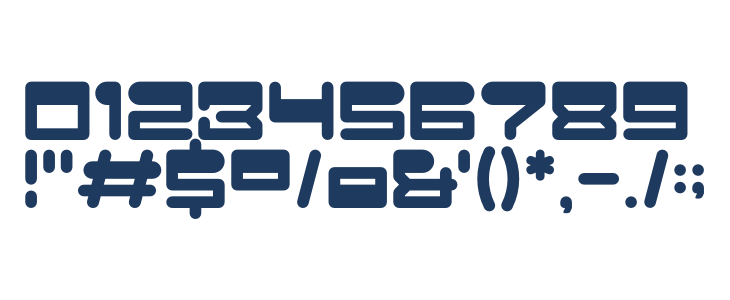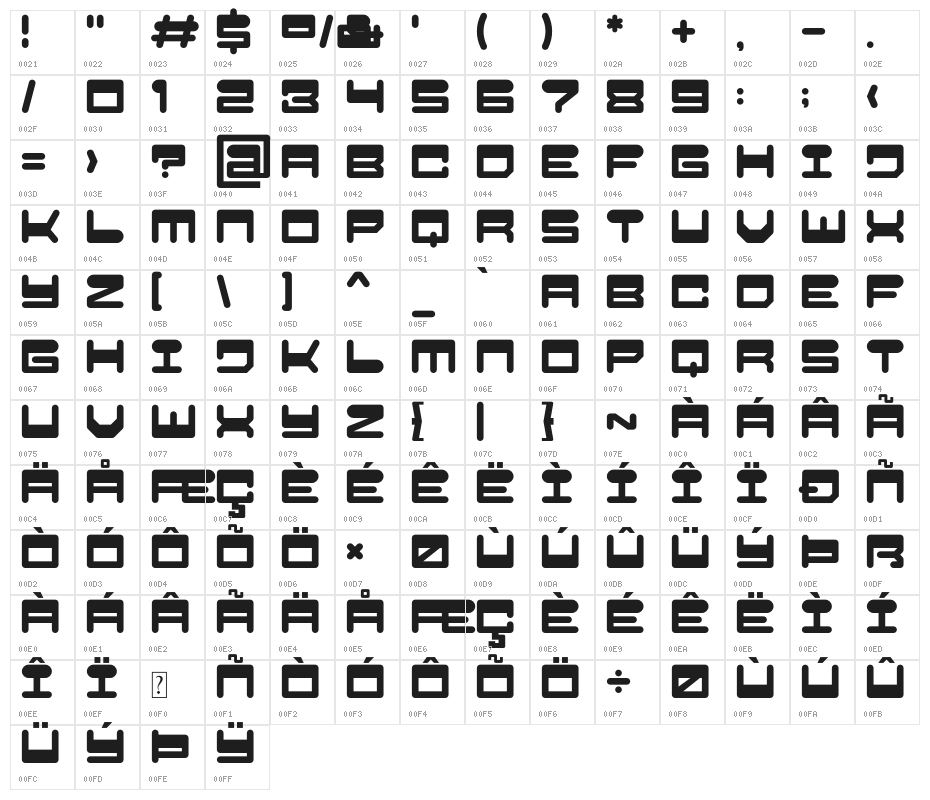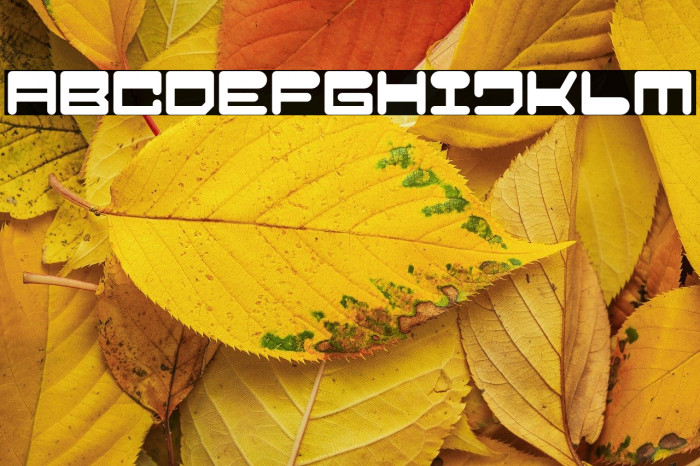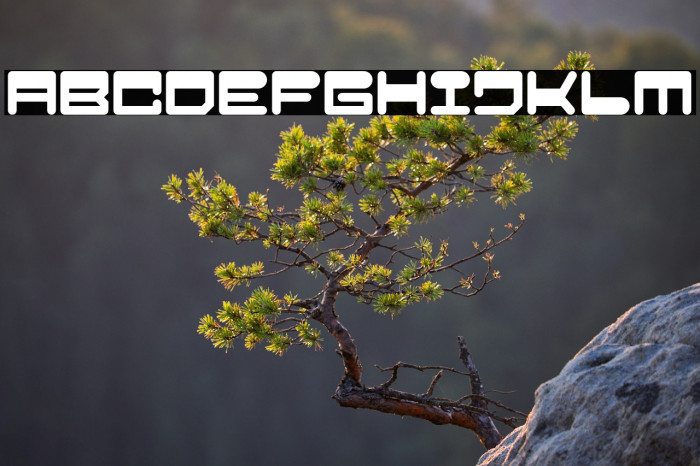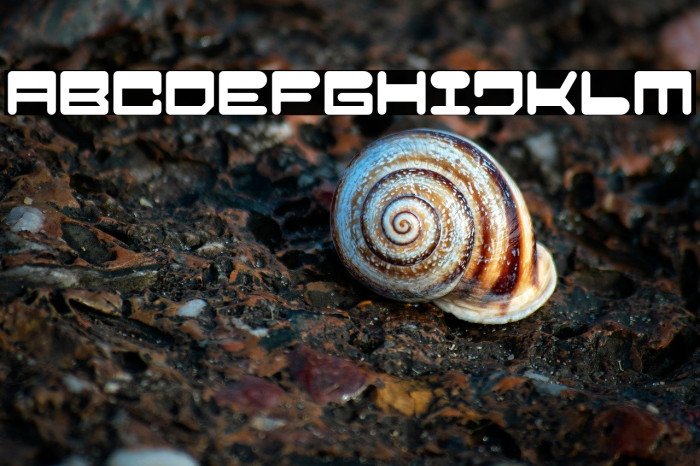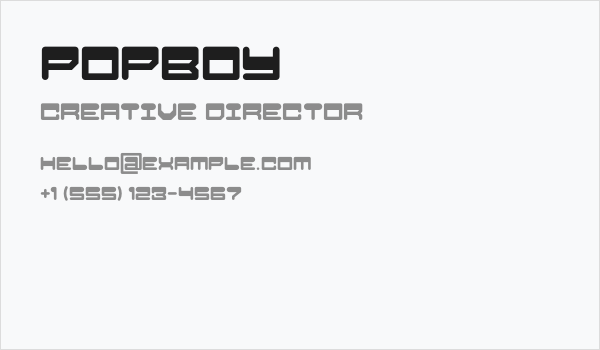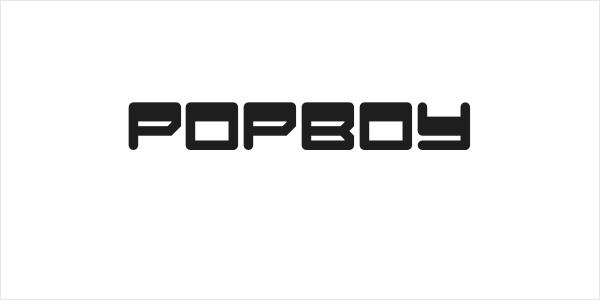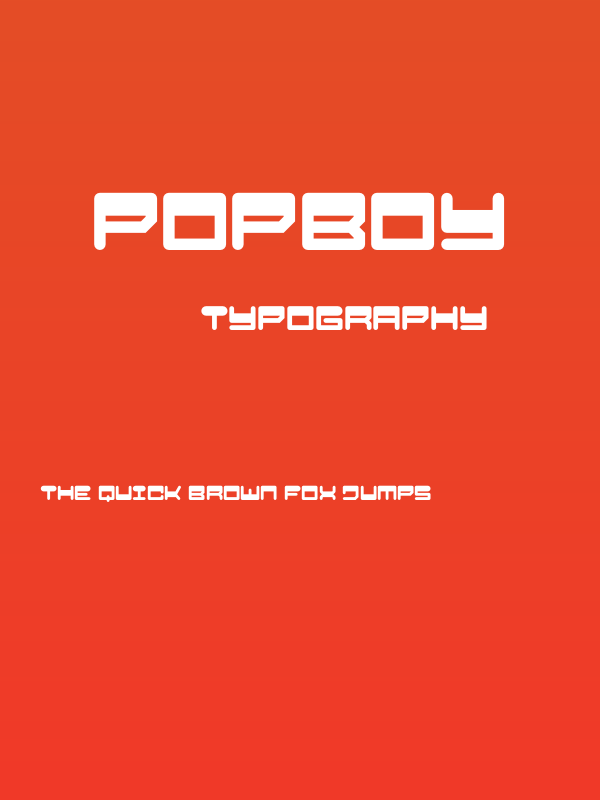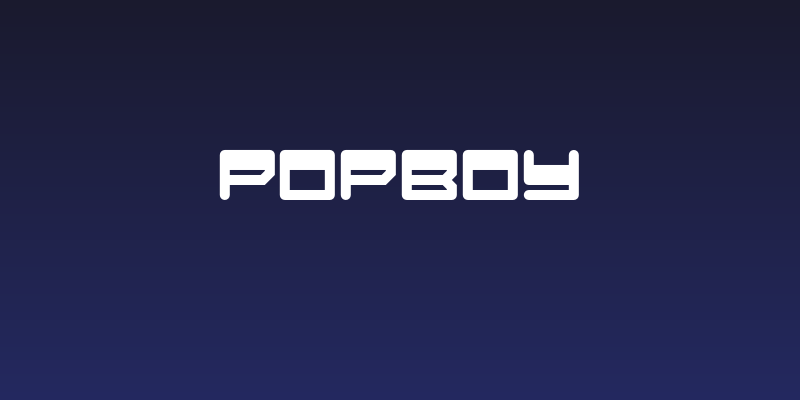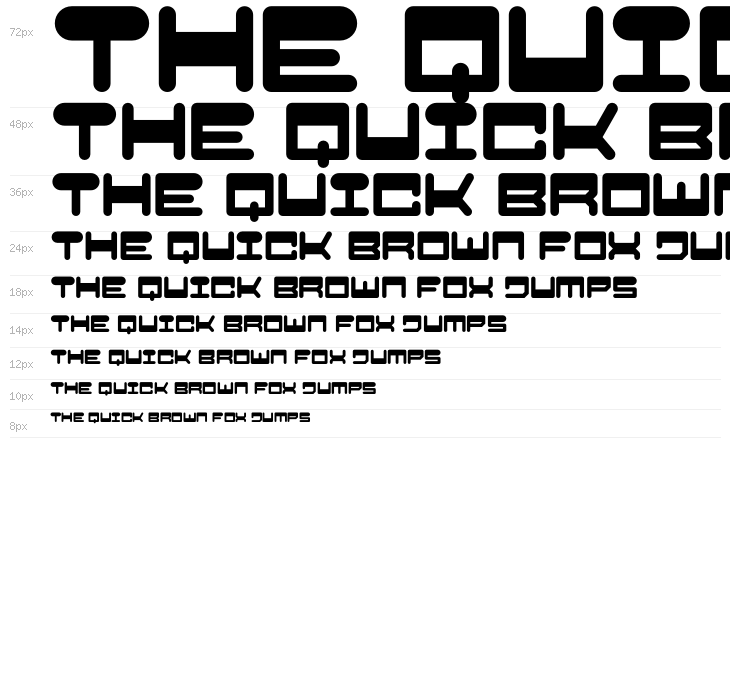
Popboy Font
Popboy Description
This font features a bold, futuristic design with rounded edges and a geometric structure. The characters are uniformly thick, giving a strong and solid appearance. The style is reminiscent of digital or sci-fi themes, with a modern twist that makes it suitable for technology-related projects. The uppercase and lowercase letters maintain a consistent height, while the numbers and special characters are designed to match the overall aesthetic. The font's unique style makes it stand out, yet it remains readable and functional.